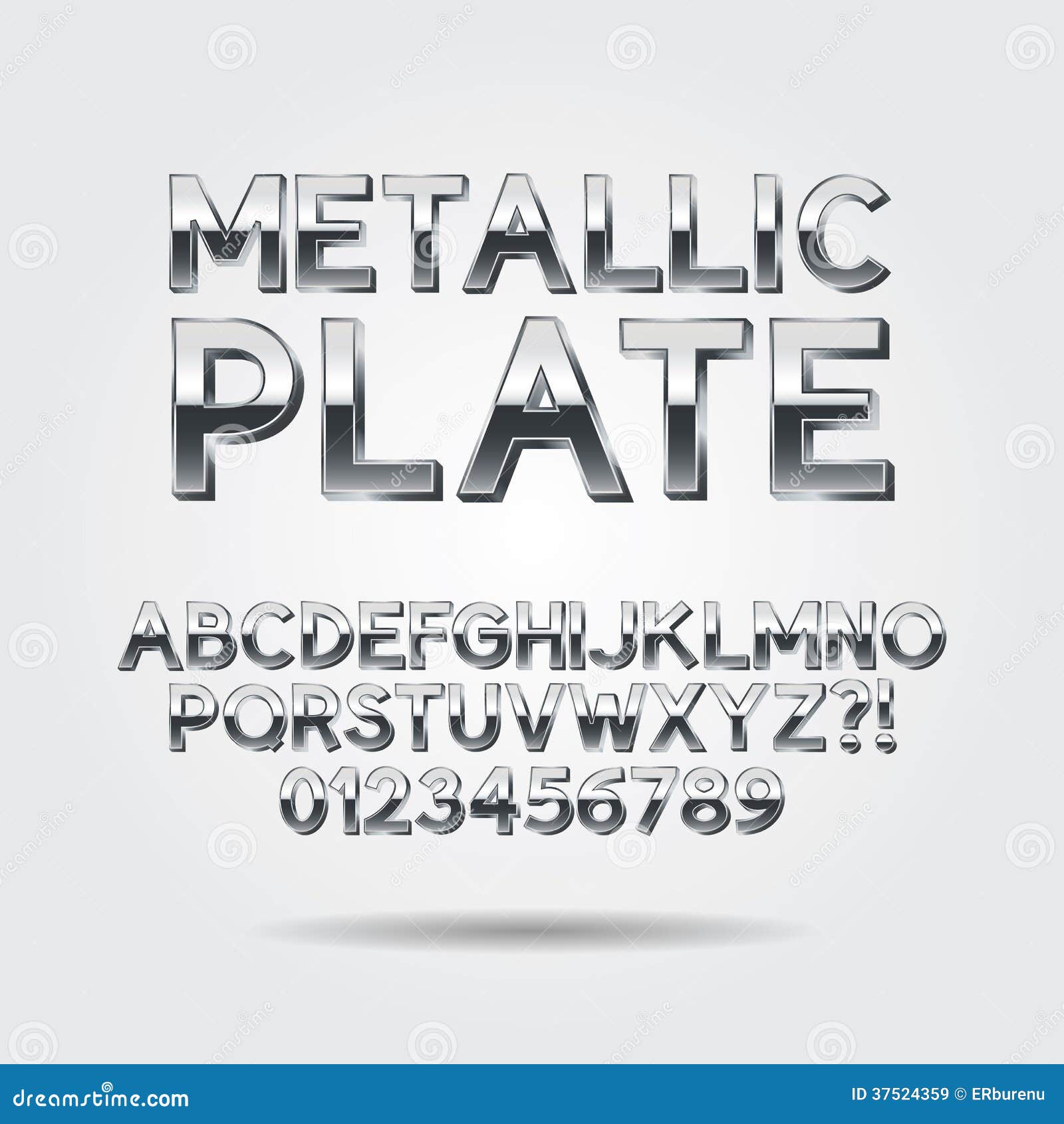
How To Print Metallic Font . In this article, we will explore the process of making a metallic font in photoshop, a popular image editing software. Learn how to create metallic font for web and print with easy steps using affinity designer and indesign that truly shines!
In this article, we will explore the process of making a metallic font in photoshop, a popular image editing software. Although the paper surface will not print a painted metallic texture, it will give the illusion of a metallic coating. This quick and easy tutorial will.
Creating metallic letters in canva is a popular choice for anyone looking to add a touch of elegance and shine to their designs. Although the paper surface will not print a painted metallic texture, it will give the illusion of a metallic coating. We take you through the exact steps you can take to make metallic letters in canva, as well how to make overlays, find metallic letter elements, and more. Learn how to create metallic font for web and print with easy steps using affinity designer and indesign that truly shines!
How To Print Metallic Font - This quick and easy tutorial will. In this article, we will explore the process of making a metallic font in photoshop, a popular image editing software. Creating metallic letters in canva is a popular choice for anyone looking to add a touch of elegance and shine to their designs. Although the paper surface will not print a painted metallic texture,.
How To Print Metallic Font - One of the most popular and versatile font types is metal font, which has been used in various industries, including graphic design,. We take you through the exact steps you can take to make metallic letters in canva, as well how to make overlays, find metallic letter elements, and more. This quick and easy tutorial will. Although the paper surface.
How To Print Metallic Font - One of the most popular and versatile font types is metal font, which has been used in various industries, including graphic design,. Although the paper surface will not print a painted metallic texture, it will give the illusion of a metallic coating. We take you through the exact steps you can take to make metallic letters in canva, as well.
How To Print Metallic Font - One of the most popular and versatile font types is metal font, which has been used in various industries, including graphic design,. Creating metallic letters in canva is a popular choice for anyone looking to add a touch of elegance and shine to their designs. We take you through the exact steps you can take to make metallic letters in.
How To Print Metallic Font - We take you through the exact steps you can take to make metallic letters in canva, as well how to make overlays, find metallic letter elements, and more. Although the paper surface will not print a painted metallic texture, it will give the illusion of a metallic coating. This quick and easy tutorial will. In this article, we will explore.
How To Print Metallic Font - One of the most popular and versatile font types is metal font, which has been used in various industries, including graphic design,. In this article, we will explore the process of making a metallic font in photoshop, a popular image editing software. Creating metallic letters in canva is a popular choice for anyone looking to add a touch of elegance.
How To Print Metallic Font - Learn how to create metallic font for web and print with easy steps using affinity designer and indesign that truly shines! Although the paper surface will not print a painted metallic texture, it will give the illusion of a metallic coating. Creating metallic letters in canva is a popular choice for anyone looking to add a touch of elegance and.
How To Print Metallic Font - Although the paper surface will not print a painted metallic texture, it will give the illusion of a metallic coating. One of the most popular and versatile font types is metal font, which has been used in various industries, including graphic design,. We take you through the exact steps you can take to make metallic letters in canva, as well.
How To Print Metallic Font - Learn how to create metallic font for web and print with easy steps using affinity designer and indesign that truly shines! One of the most popular and versatile font types is metal font, which has been used in various industries, including graphic design,. In this article, we will explore the process of making a metallic font in photoshop, a popular.
How To Print Metallic Font - Although the paper surface will not print a painted metallic texture, it will give the illusion of a metallic coating. We take you through the exact steps you can take to make metallic letters in canva, as well how to make overlays, find metallic letter elements, and more. One of the most popular and versatile font types is metal font,.
How To Print Metallic Font - This quick and easy tutorial will. One of the most popular and versatile font types is metal font, which has been used in various industries, including graphic design,. In this article, we will explore the process of making a metallic font in photoshop, a popular image editing software. Learn how to create metallic font for web and print with easy.